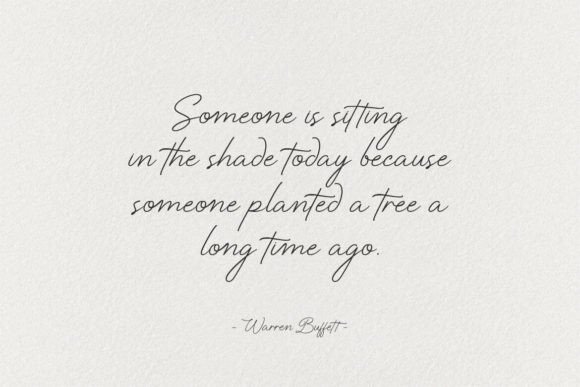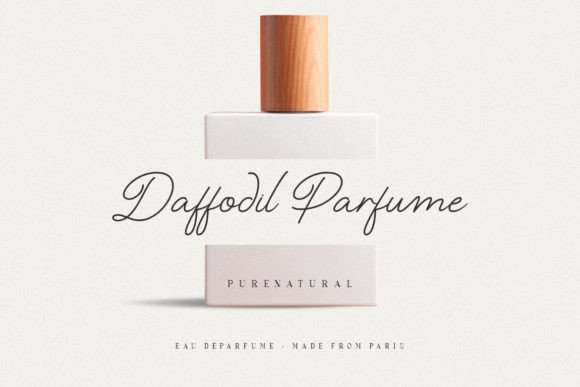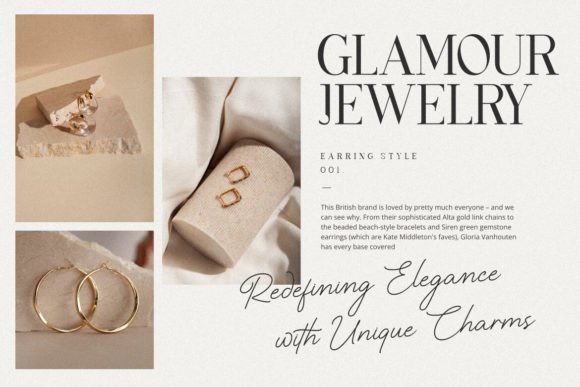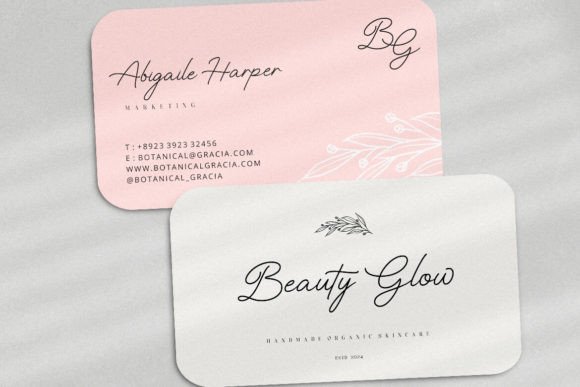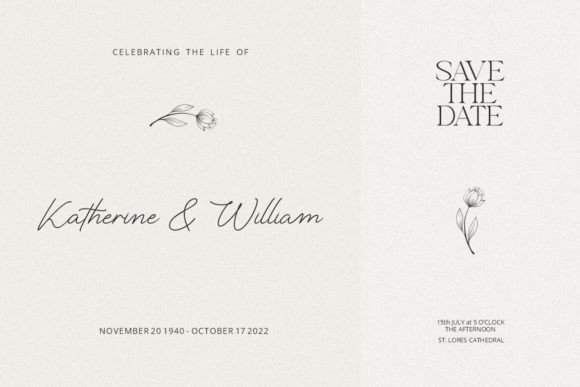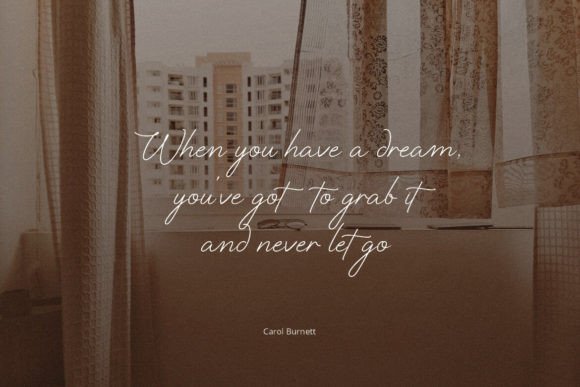
Introduction to Lemontine Font
Lemontine Font is a modern, casually and feminine monoline handwritten font.
Some projects that are suitable for this font include quotes, menus, taglines, flyers, posters, invitations, greeting cards, posters, business cards, clothing, letters, stationery and many others Comes with a full uppercase, lowercase, numbers, punctuation, ligature character and with extensive language support, itโs going to be a very usable addition to your project.
Key Features of Lemontine Font